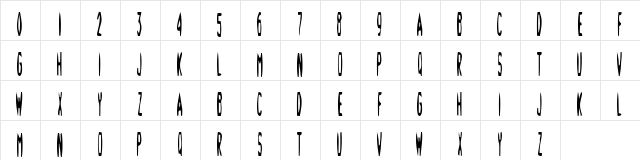
Complete Damage!" Stab Regular glyph index. Displaying only characters natively supported by Damage!" Stab Regular font.
Damage!" Stab is a composed and adaptable typeface that performs quietly and consistently across a wide range of design contexts.